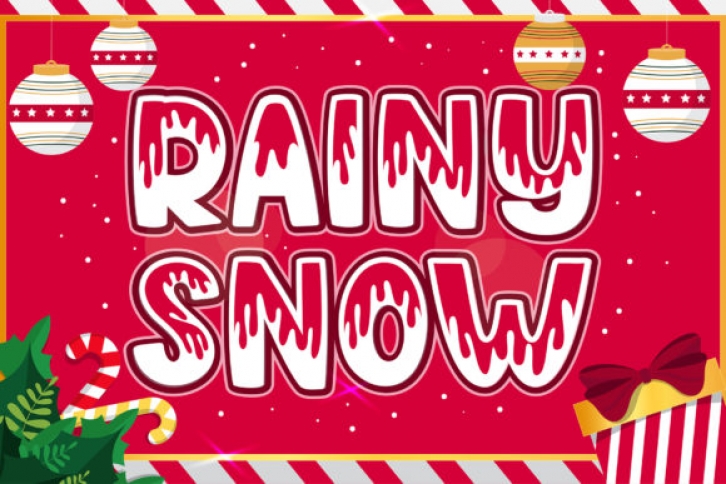
Rainy Snow is a bold and chunky lettered display font. It has a strong personality and as a result, it will complement any design idea that you wish to put forth.